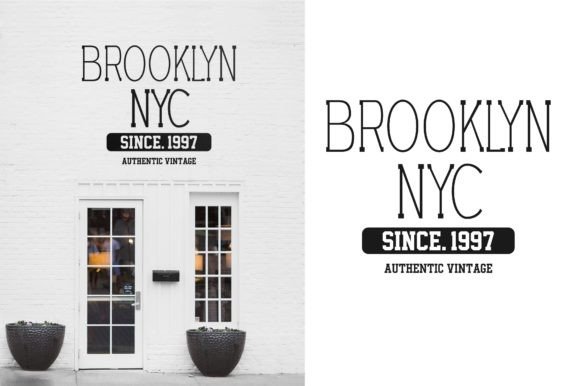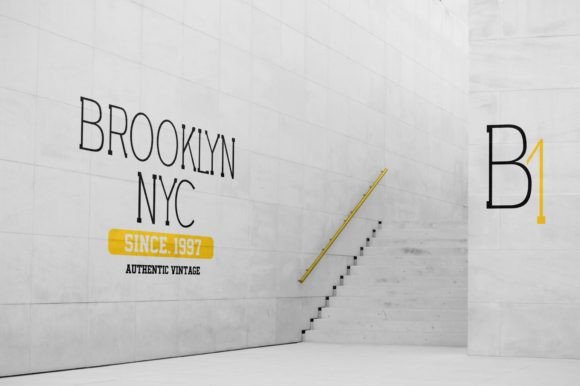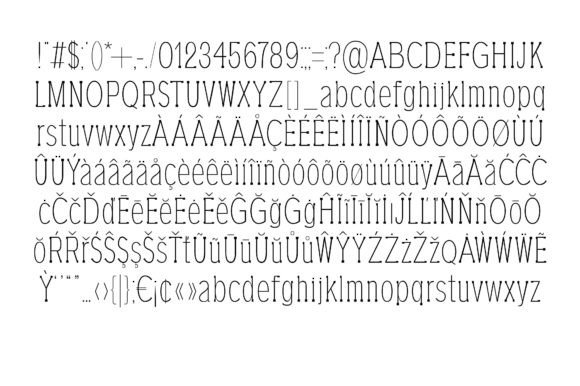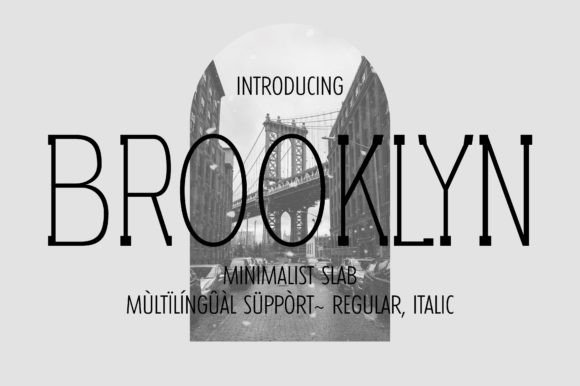
Discover the Elegance of Brooklyn Font: A Slab Serif Typeface for Creative Designs
In the world of typography, fonts play a crucial role in conveying the tone and aesthetic of a design. For designers and crafters looking for a typeface that exudes elegance and sophistication, Brooklyn Font is an excellent choice. This beautiful, delicate, and thin slab serif typeface has gained popularity for its versatility and clean look, making it perfect for various design applications.
What is Brooklyn Font?
Brooklyn Font is a slab serif typeface characterized by its delicate and thin aspect, which gives it a clean and elegant appearance. The font’s subtle strokes and refined lines make it an ideal choice for designs that require a touch of sophistication. Its unique features set it apart from other typefaces, making it a go-to font for designers seeking to add a fresh look to their creations.
Key Features of Brooklyn Font
- Delicate and Thin: Brooklyn Font’s most distinctive feature is its delicate and thin strokes, which provide a clean and elegant look to any design.
- Slab Serif: As a slab serif typeface, Brooklyn Font features a subtle serif that adds to its sophistication and versatility.
- Versatile: Brooklyn Font can be used in various contexts, including packaging design, perfume design, fashion design, magazine covers, and large-scale titles.
Applications of Brooklyn Font
Brooklyn Font’s versatility makes it suitable for a wide range of design applications. Here are some of the ways you can use Brooklyn Font to elevate your designs:
- Packaging Design: Add a touch of elegance to your product packaging with Brooklyn Font. Its delicate and thin aspect makes it perfect for labels, tags, and packaging materials.
- Perfume Design: Create luxurious and sophisticated perfume packaging with Brooklyn Font. The font’s refined lines and subtle strokes evoke a sense of high-end quality.
- Fashion Design: Brooklyn Font is an excellent choice for fashion designers looking to add a touch of elegance to their designs. Use it for branding, logos, or typography in your fashion creations.
- Magazine Covers: Make a statement with Brooklyn Font on your magazine covers. Its bold yet delicate appearance is sure to grab attention and draw readers in.
- Large-Scale Titles: Use Brooklyn Font for large-scale titles, such as billboards, posters, or signage. Its clean and elegant appearance will make your titles stand out.
Why Choose Brooklyn Font?
With so many typefaces available, why choose Brooklyn Font? Here are a few reasons why designers and crafters love Brooklyn Font:
- Elegance: Brooklyn Font adds a touch of elegance to any design, making it perfect for high-end brands and luxury products.
- Versatility: Brooklyn Font can be used in various contexts, from packaging design to magazine covers.
- Clean and Simple: Brooklyn Font’s delicate and thin aspect makes it easy to read and understand, even at small sizes.
Tips for Using Brooklyn Font
To get the most out of Brooklyn Font, here are some tips to keep in mind:
- Pair it with Other Fonts: Brooklyn Font works well with other fonts, especially sans-serif typefaces. Experiment with different pairings to find the perfect combination for your design.
- Use it in Headings: Brooklyn Font is perfect for headings and titles. Use it to draw attention to important information or to create a visual hierarchy in your design.
- Experiment with Colors: Brooklyn Font looks great in a variety of colors. Experiment with different hues and shades to find the perfect color scheme for your design.
Brooklyn Font is a beautiful, delicate, and thin slab serif typeface that adds a touch of elegance to any design. Its versatility, clean look, and sophisticated appearance make it perfect for various design applications, from packaging design to magazine covers. Whether you’re a designer or crafter, Brooklyn Font is an excellent choice for adding a fresh look to your creations. So why not give it a try and see the difference it can make in your designs?